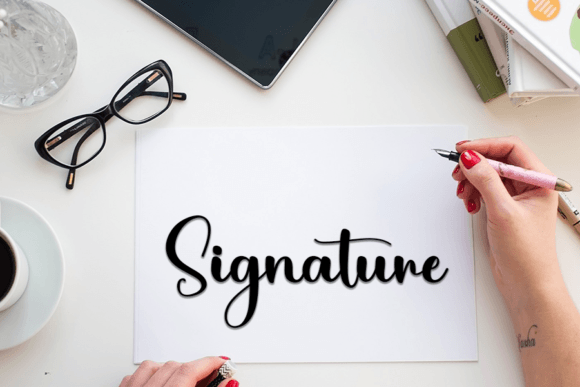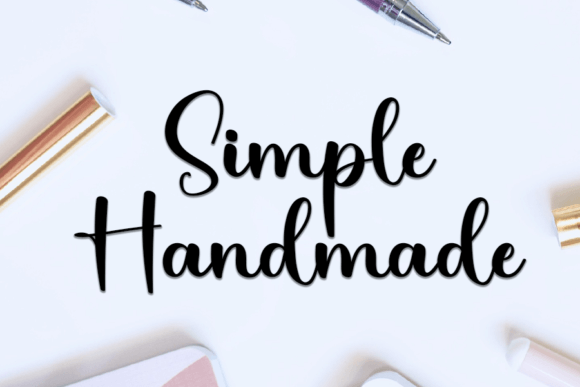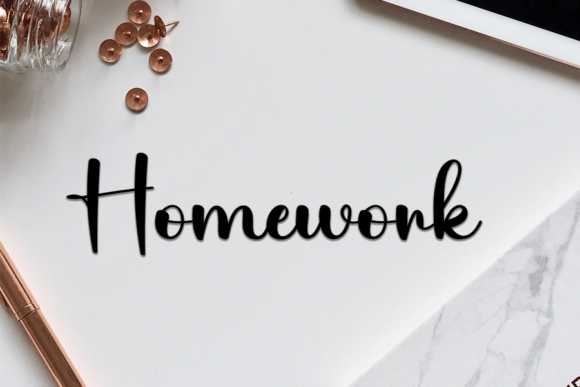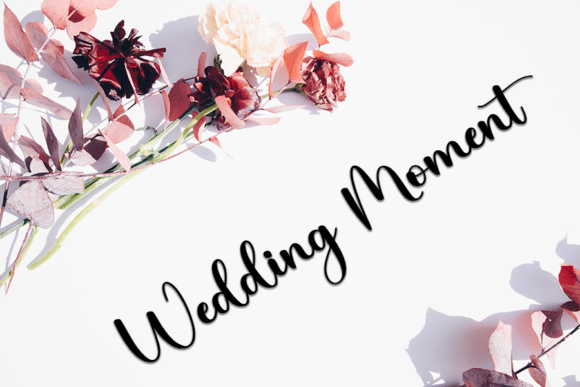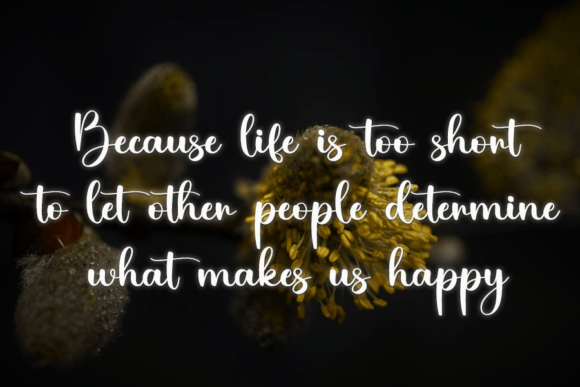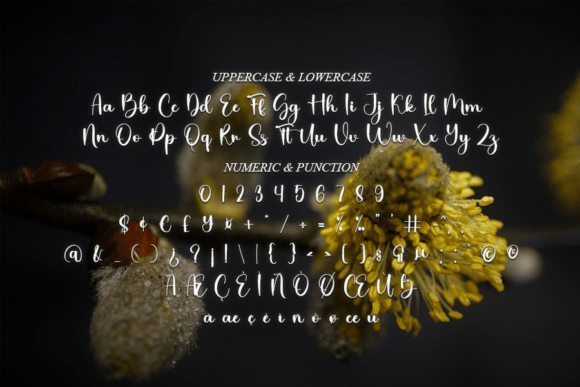
Introduction to Homestay Font
Homestay is a delicate handwritten font carefully crafted for a cool and unique design.
This font can be used to write letters, invitations, food products, titles, and more .
Key Features of Homestay Font
Why Choose Homestay Font?
Homestay Font offers exceptional quality and versatility, making it a valuable addition to your design toolkit. Whether you’re creating for personal projects or commercial use, Homestay Font delivers professional results.